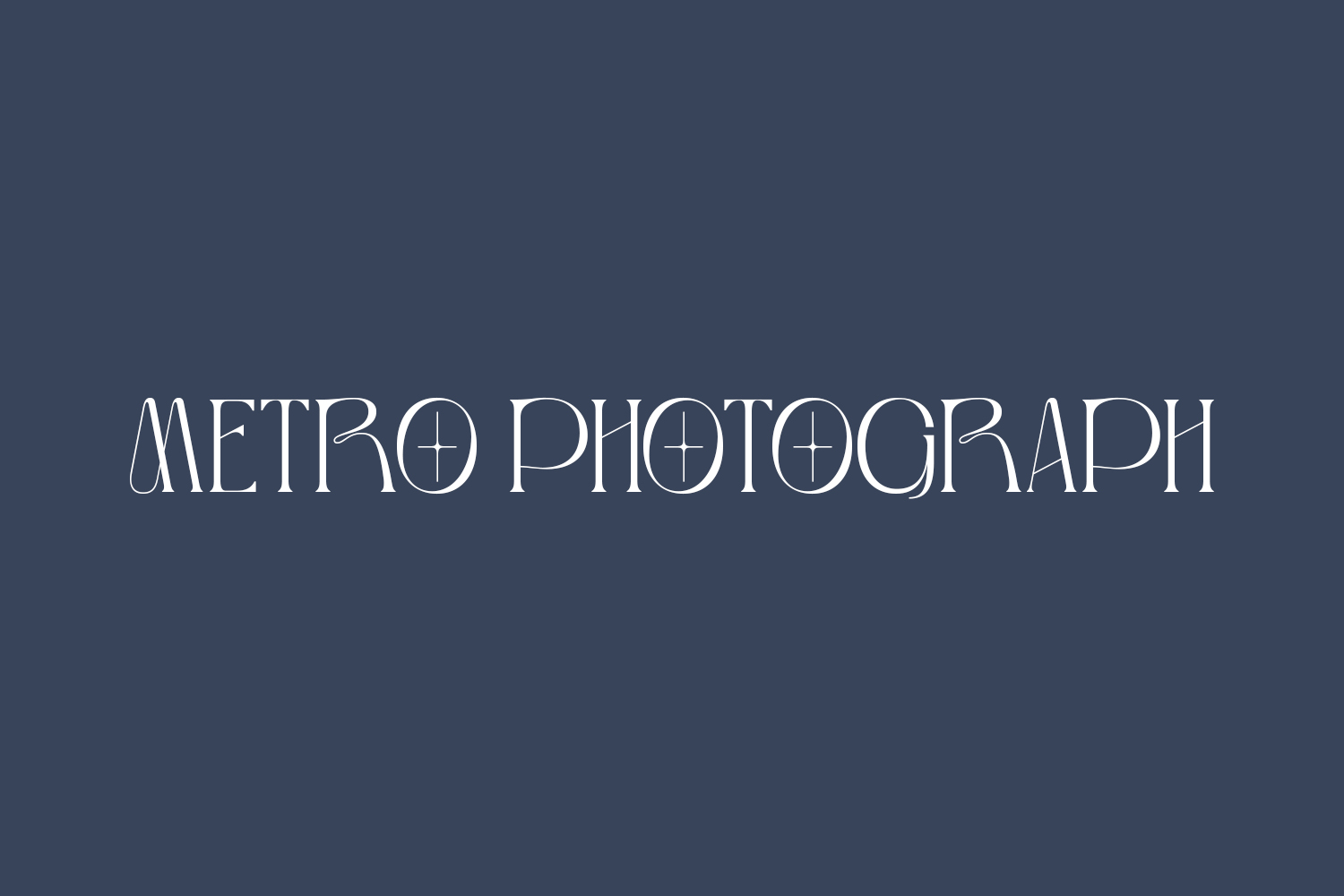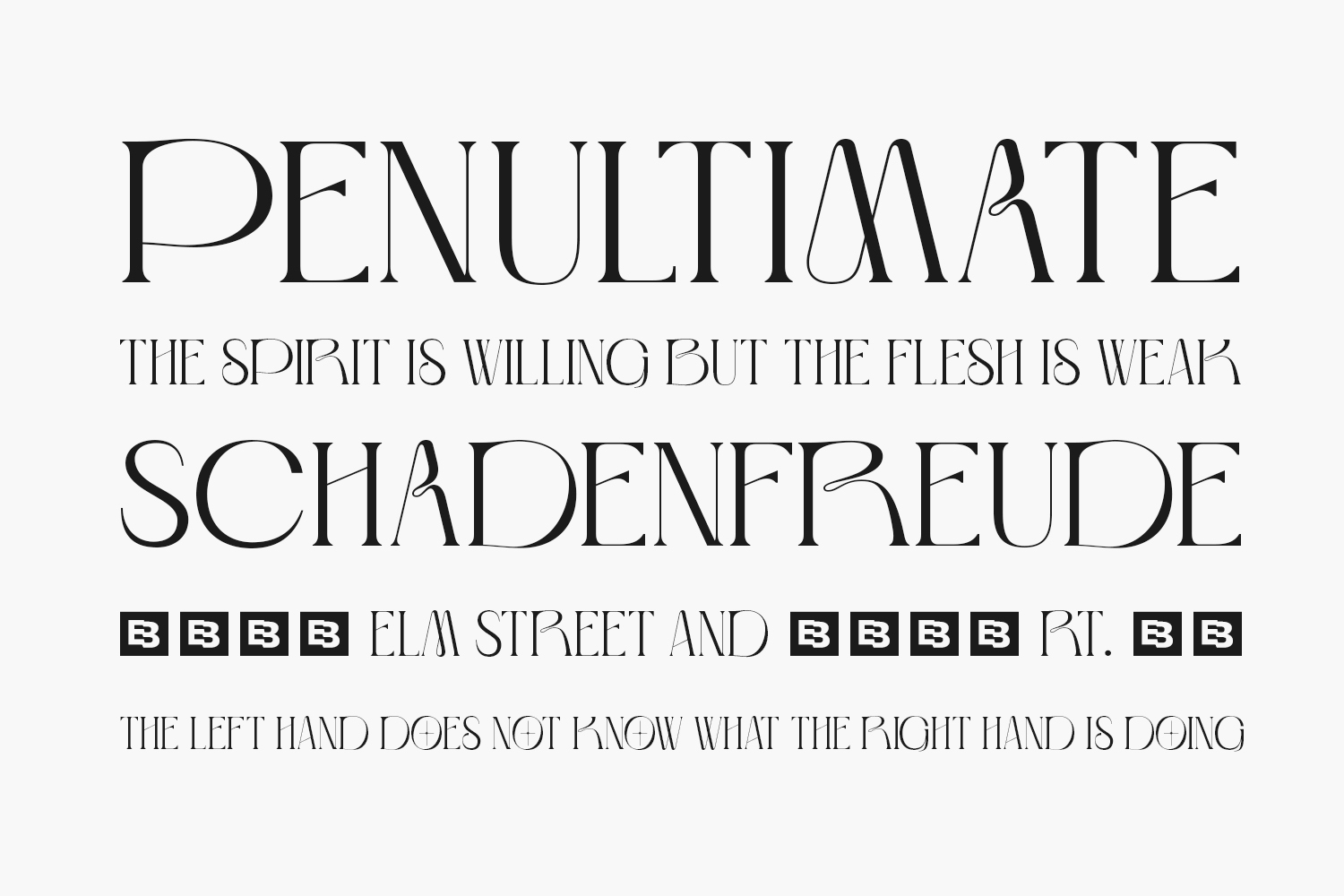
Introducing Metro Photograph Free Font: a sleek and elegant display font tailored for your projects. Crafted with precision to captivate, this font elevates your creative visions to new heights. Download the font for free if you need it for personal use or purchase the full version for commercial use.
Designed by Nirmana Visual